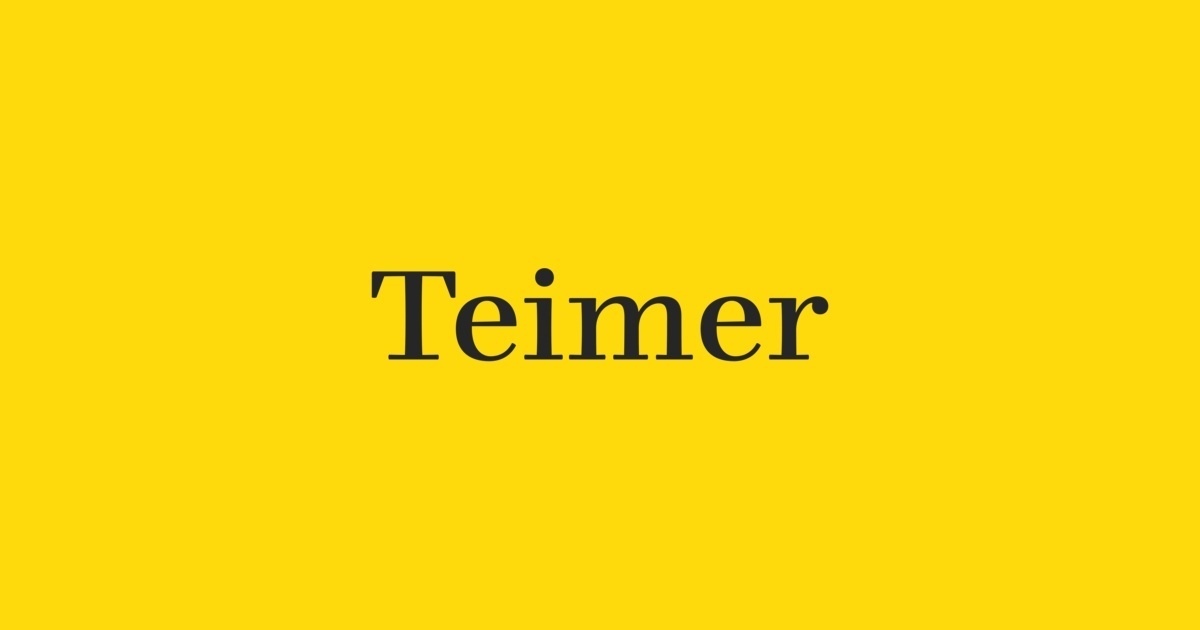
Teimer Font
Teimer Font is perfect for modern tech branding, contemporary logo design, sleek packaging layouts, minimalist poster design, digital interface typography, architectural firm identity, clean magazine headers, professional business cards, sophisticated signage systems, cutting-edge web design, innovative product branding, and streamlined corporate communications.
Teimer Font is exciting because it perfectly balances geometric precision with human warmth, creating letterforms that feel both technically sophisticated and naturally approachable, making it ideal for brands seeking to communicate innovation and reliability while maintaining genuine connection with contemporary audiences seeking authentic modern experiences.
The Teimer Font family includes refined variations: Thin, Light, Regular, Medium, Bold, Black, and matching Italic styles, providing designers with a comprehensive modern typography system to create sophisticated hierarchies that work seamlessly across all contemporary design applications and digital platforms.
The font's meticulously crafted letterforms feature optimized curves and perfectly balanced proportions that ensure outstanding legibility across all sizes and applications. Each character demonstrates careful attention to detail and design intelligence, with subtle refinements that elevate the typeface above standard geometric fonts while maintaining universal accessibility.
Teimer Font excels in creating sophisticated brand experiences for forward-thinking businesses across technology, design, and professional services sectors. Its clean, organized appearance communicates competence and innovation, making it perfect for startups, creative agencies, and established brands seeking contemporary relevance and professional credibility.
Professional designers appreciate how Teimer Font maintains its distinctive character while providing exceptional versatility across diverse modern applications. The extensive weight range ensures optimal performance from delicate mobile interfaces to bold environmental graphics, maintaining consistent quality and contemporary aesthetic appeal.
This remarkable typeface brings instant modern sophistication to any project while remaining timelessly elegant. From architectural firms to tech startups, Teimer Font creates memorable impressions that communicate precision, innovation, and the refined simplicity that defines excellent contemporary design and professional communication.